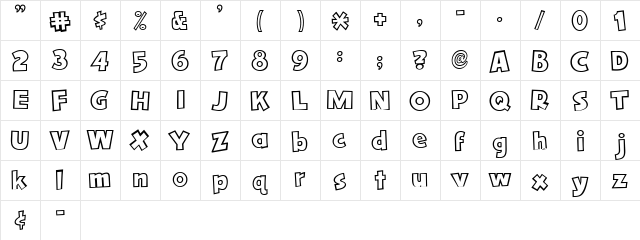
0 Toon Block DNA Regular
0 Toon Block DNA is a composed and adaptable typeface that performs quietly and consistently across a wide range of design contexts.